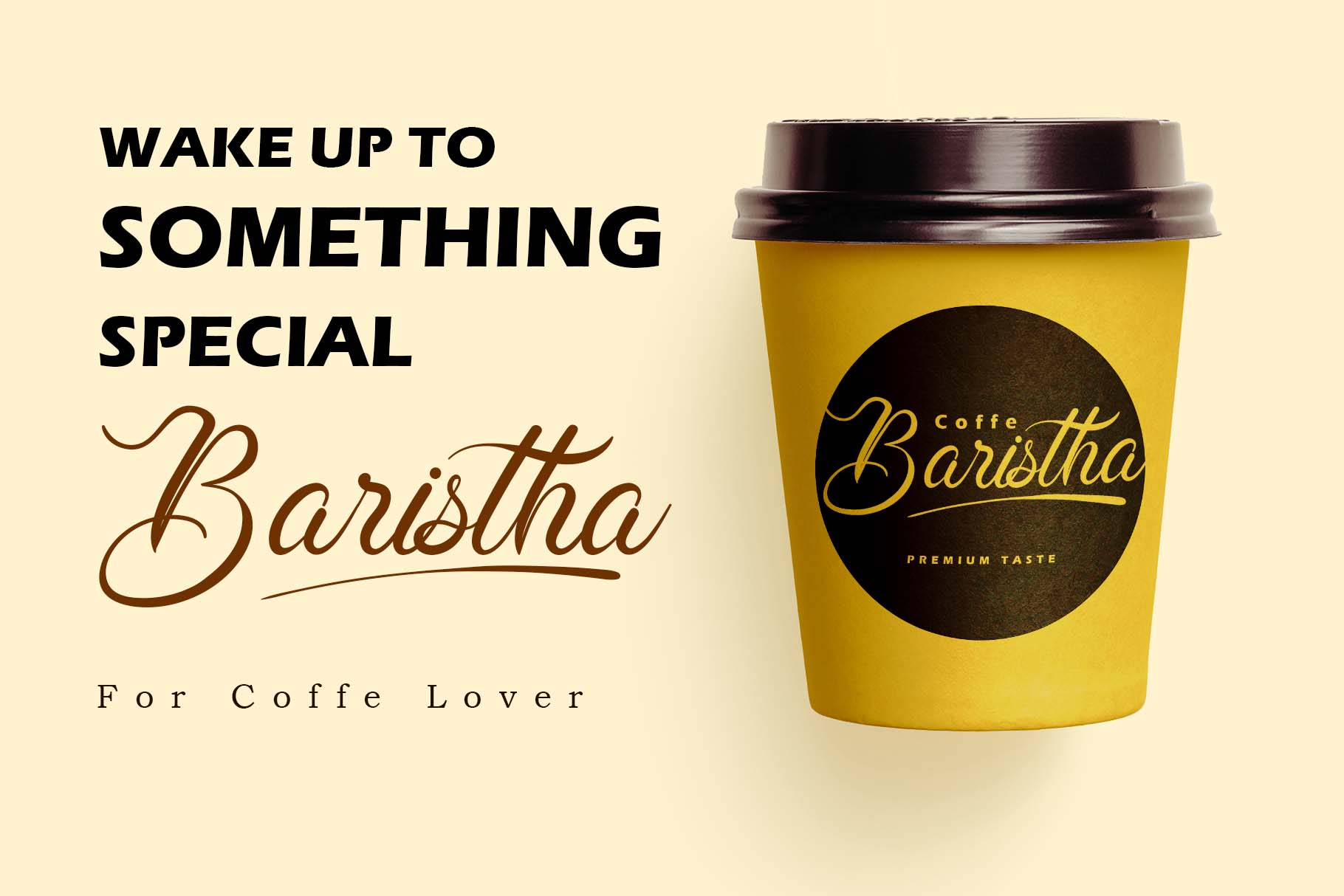
Lathin Sandy Font
Lathin Sandy Script Font
This is a relaxed and stylish handwritten font. Whether you’re using it for crafts, digital design, presentations, or making greeting cards, this font has the potential to become your favorite go-to font, no matter the occasion!